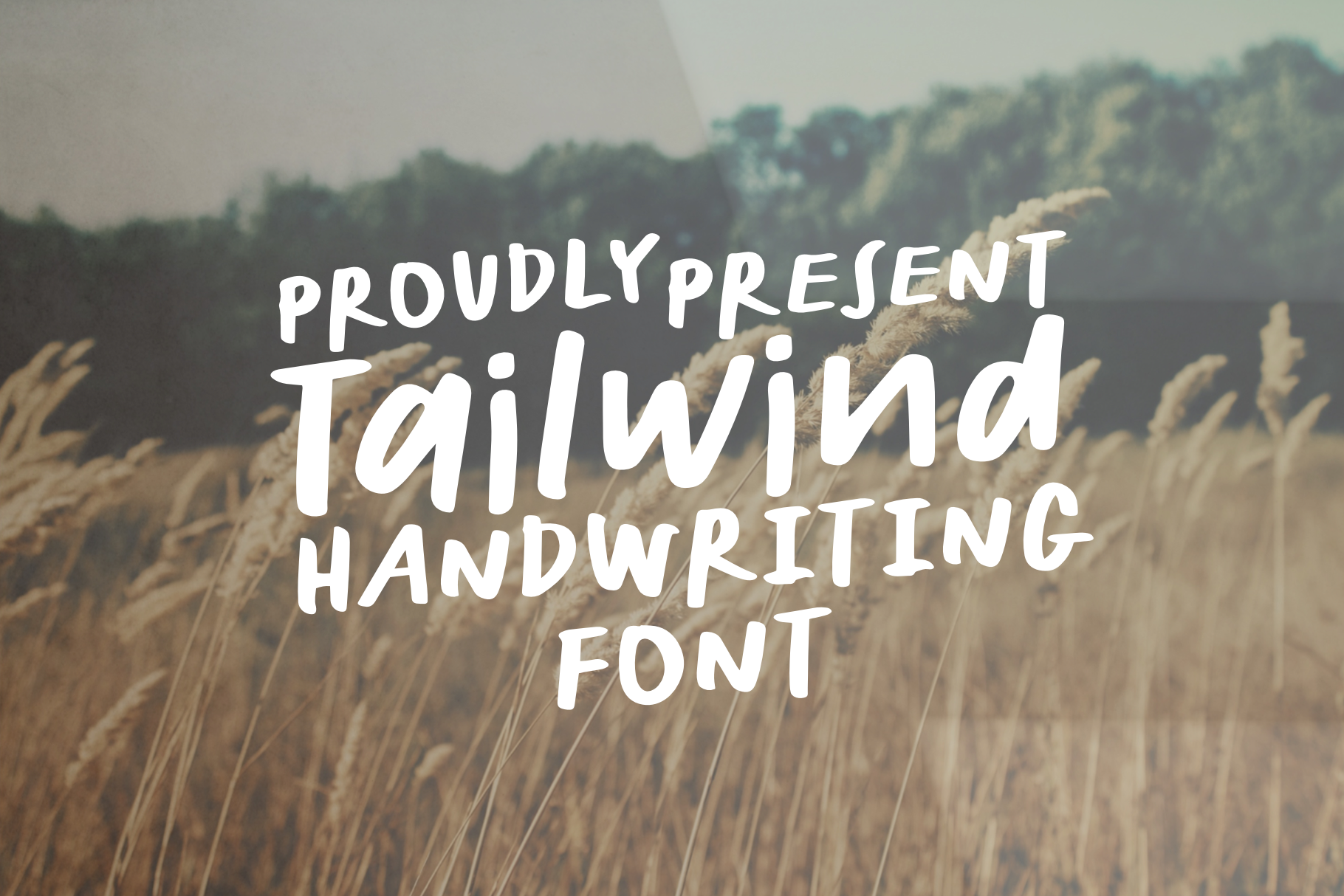
Tailwind natural handwritten font
Tailwind, a cool and casual handwritten font (English only). You can use this font in various projects - blog posts, digital planner, invitations, greeting cards, planners, photo albums, decorations and much more. Thank you :)